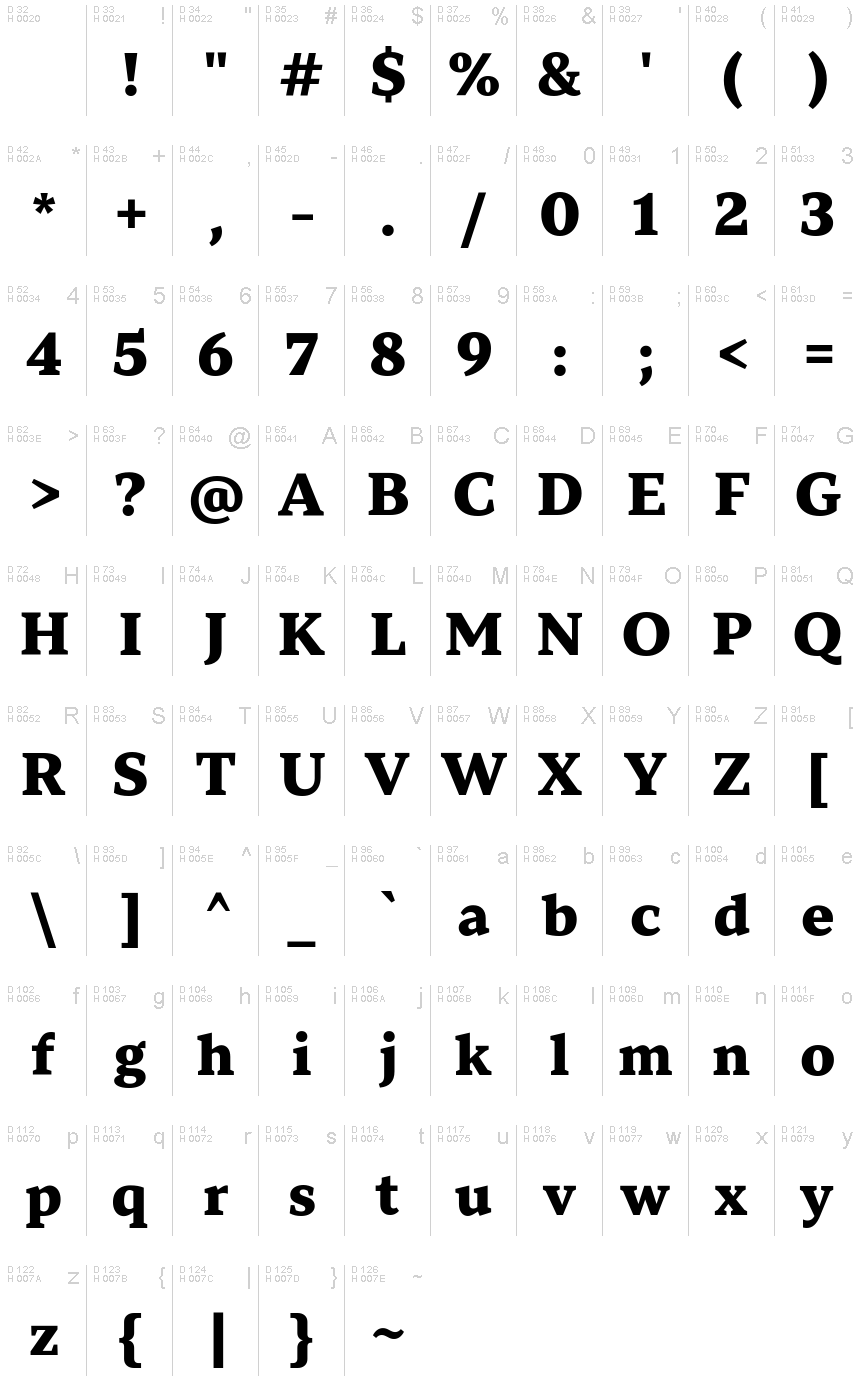
TT Norms Pro Serif Trl XBd
TT Norms Pro Serif XBd font, hailing from the TT Norms Pro Serif family by TypeType Foundry, exudes a striking blend of elegance and modernity. This bold serif font captures attention with its confident presence, characterized by pronounced stroke contrasts and graceful curves that lend an air of sophistication.
Visually commanding yet approachable, it is ideal for branding, editorial design, and high-impact headlines. The font’s substantial presence ensures legibility across various applications while maintaining a sense of refinement. Whether used in print or digital media, TT Norms Pro Serif XBd enhances projects by adding a touch of class and professionalism. Its unique aesthetic makes it suitable for luxury brands, elegant publications, or any context where impactful communication is key.